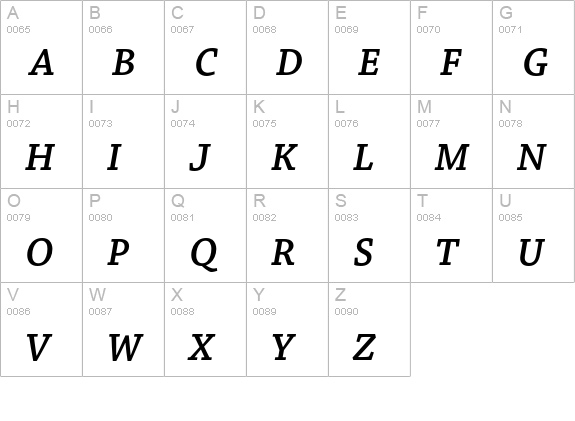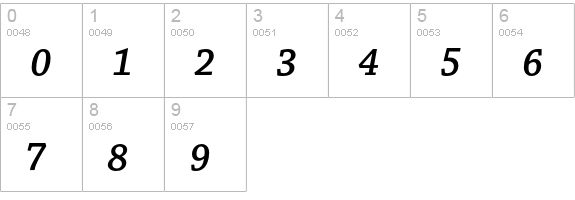
Chaparral Pro Semibold Italic Caption Font Details
Chaparral Pro Semibold Italic Caption is a sub-bold, structured, italic variant in the Chaparral typeface family \xE2\x80\x94 well suited to sub-headlines and emphasised passages.
Chaparral Pro Semibold Italic Caption is a versatile and modern font that strikes the perfect balance between elegance and readability. With its bold yet sophisticated appearance, this font is ideal for adding a touch of style to any design project. The italicized slant adds a dynamic flair, making it perfect for creating emphasis or highlighting important information. Designed with precision and attention to detail, Chaparral Pro Semibold Italic Caption is a standout choice for titles, headings, and captions where a strong visual impact is desired. Its clean lines and distinctive letterforms lend a professional and polished look to any text. Best of all, Chaparral Pro Semibold Italic Caption is available for free download at FontsMarket.com. This means you can easily access this high-quality font to elevate your designs without any cost. Don't miss out on the opportunity to enhance your projects with the striking beauty of Chaparral Pro Semibold Italic Caption - download it today and start creating captivating designs!